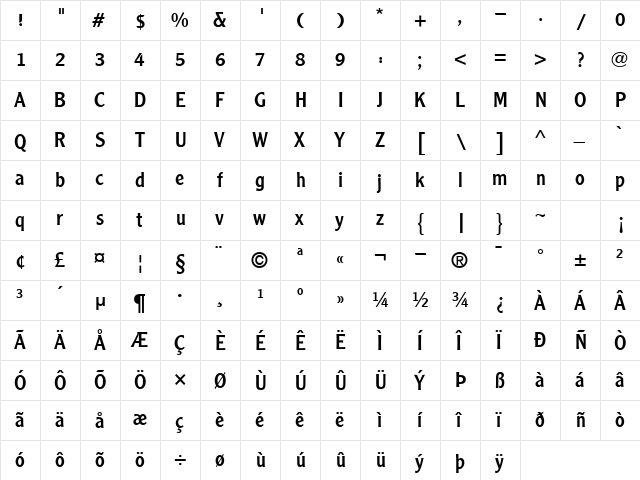
Ahmed LT Regular
| Foundry | Linotype GmbH |
| Designer | Ahmed Ali |
Design Context for Ahmed LT Typeface
Ahmed LT offers clean, dependable letterforms without strong stylistic allegiance, making it a practical choice for designers who need flexibility. Its slender proportions lend an understated elegance to any composition.